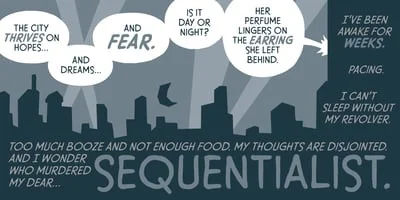
Sequentialist BB Font
Sequentialist BB Font is a dynamic and structured display typeface that often draws inspiration from comic books, graphic novels, or sequential art. Its bold, energetic forms and strong outlines make it an excellent choice for projects that demand a powerful narrative presence and visual excitement. Imagine it perfect for comic book lettering, graphic novel titles, video game interfaces, action-oriented advertising campaigns, impactful event posters, or animated film titles. This font excels in environments where a sense of adventure, storytelling, and an unmistakable graphic punch are paramount. It’s particularly effective for conveying motion, excitement, and a clear, sequential flow, ensuring your message not only stands out but also leads the eye through a compelling visual journey.
What makes Sequentialist BB Font truly exciting is its inherent ability to bring a story to life through typography. It often features strong, confident strokes and a design that feels purposeful, almost guiding the reader from one character to the next. This font isn't just about displaying text; it's about setting a scene, creating a narrative rhythm, and injecting your designs with a sense of vibrant, dynamic energy. It has a powerful ability to feel both incredibly impactful and surprisingly versatile, making it an ideal tool for designers who want their work to convey excitement, action, and a truly memorable visual experience. Sequentialist BB Font empowers brands and creatives to project an image that is bold, engaging, and rich with storytelling potential.
The Sequentialist BB Font family often focuses on delivering its unique display style with optimal impact and character. You'll typically find it available in strong, impactful weights, which best showcase its distinctive design elements and comic-book inspired aesthetic. While it might not feature a wide range of weights or conventional italic styles, some versions could include stylistic alternatives for certain characters, ligatures, or even unique dingbats that further enhance its expressive and sequential appearance, allowing for even more customized typographic compositions. The comprehensive character set generally covers standard Latin characters, numbers, and a selection of punctuation, ensuring that Sequentialist BB Font is suitable for a wide array of creative and commercial applications where a bold and distinctive statement is desired. Its memorable and action-packed presence ensures that any project featuring Sequentialist BB Font will leave a strong, lasting impression.